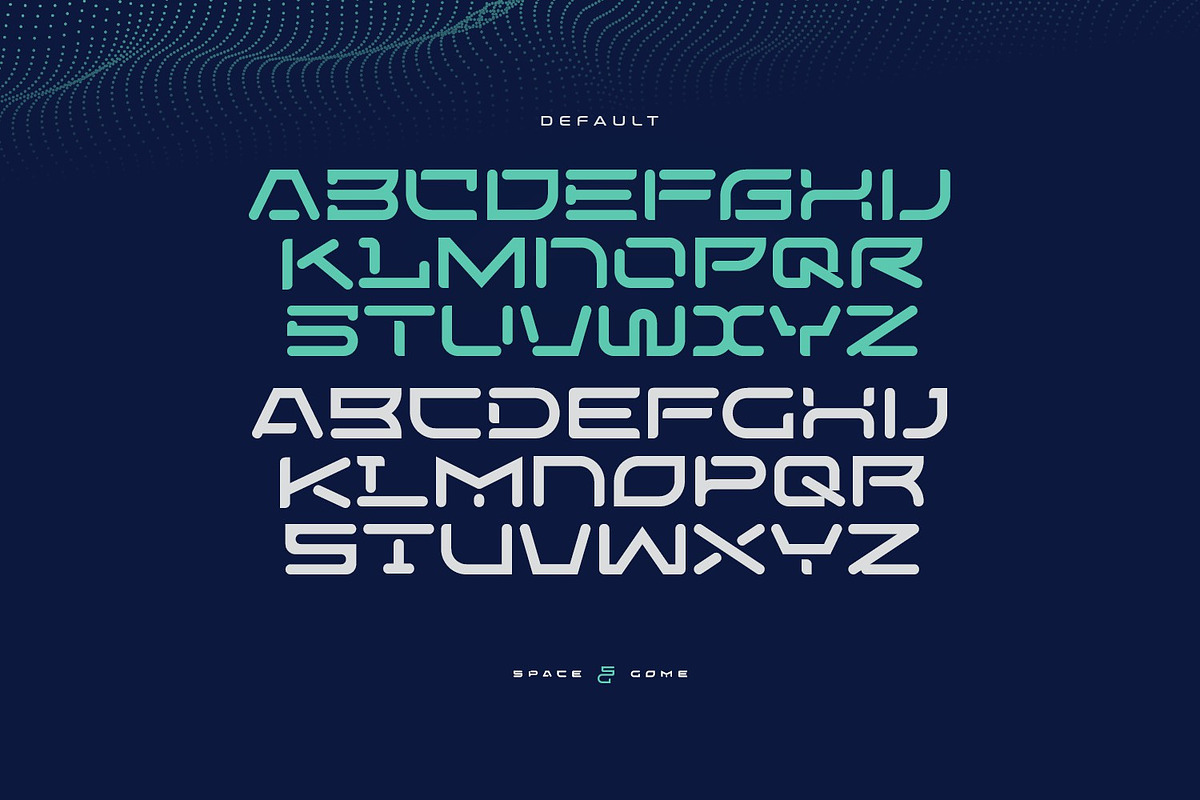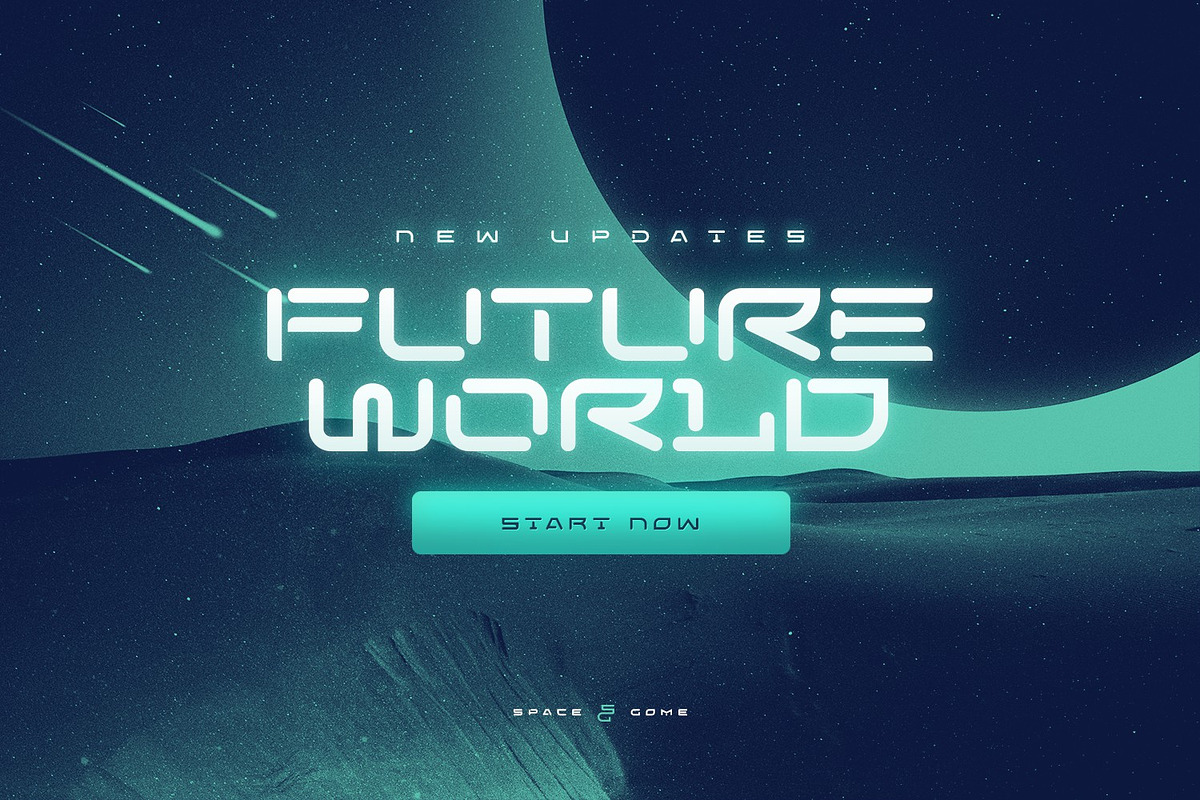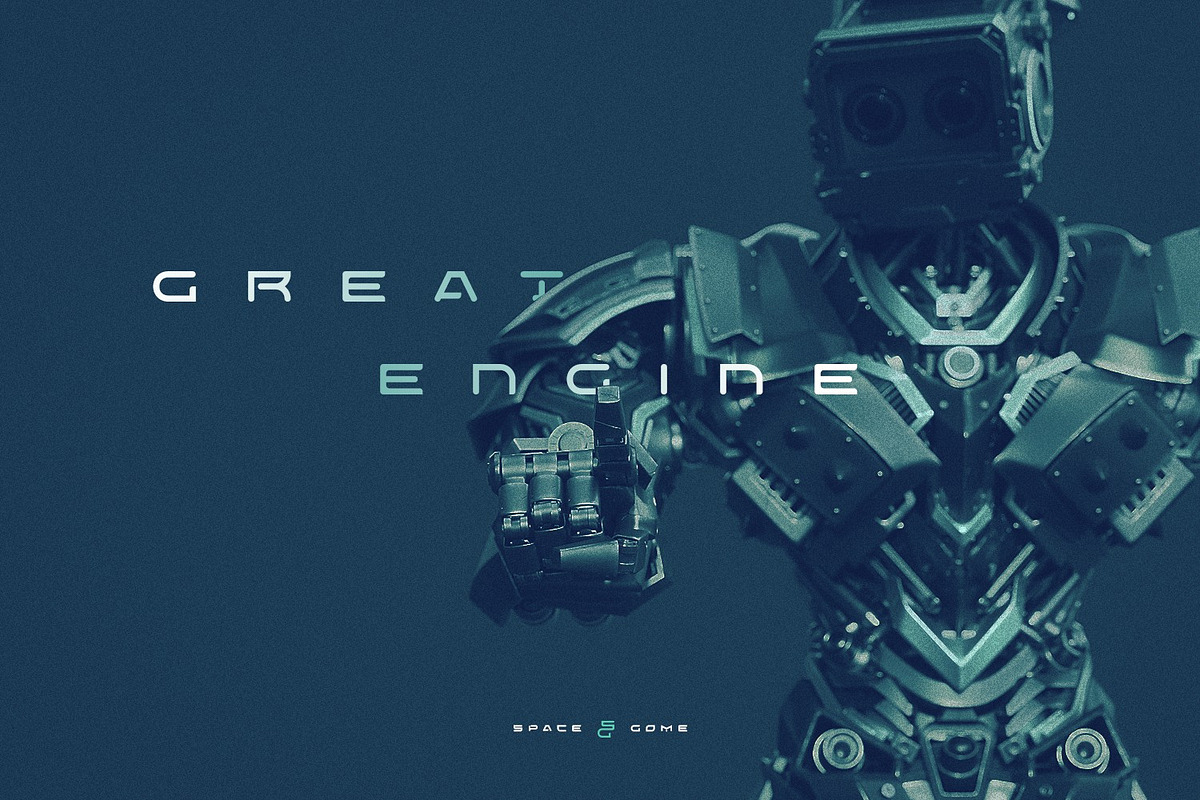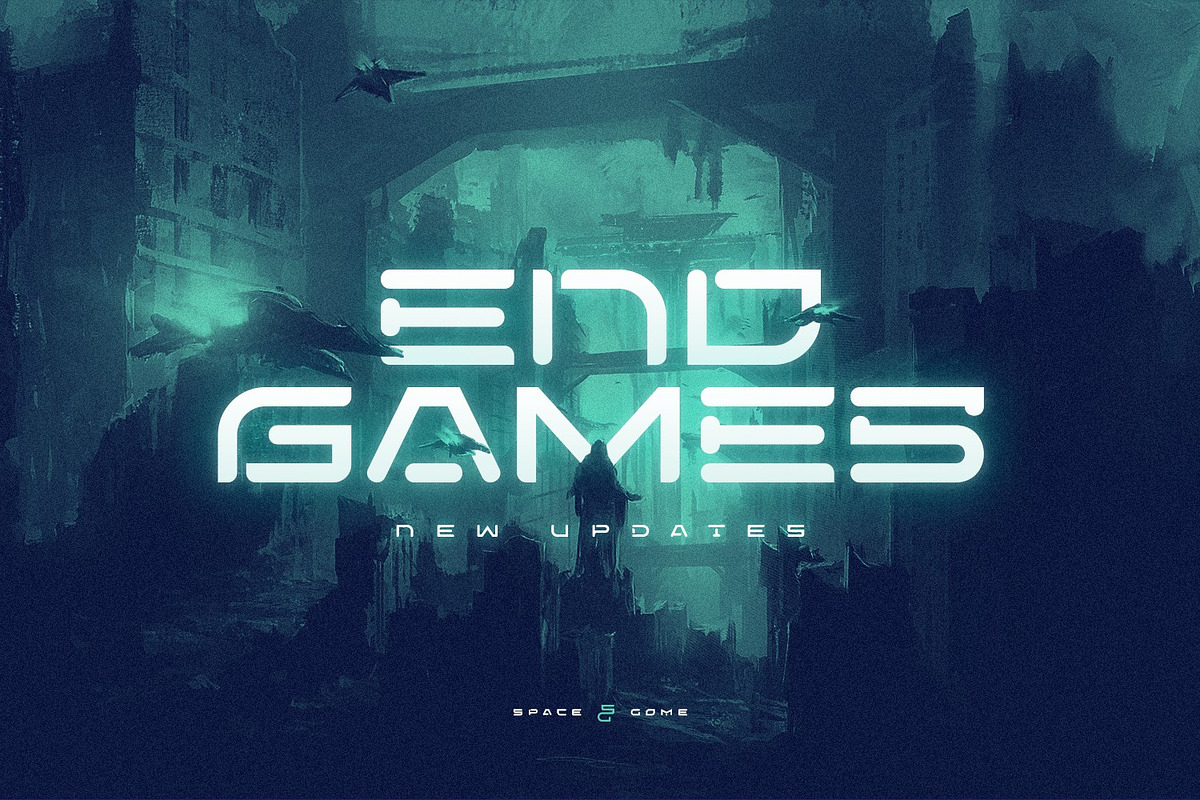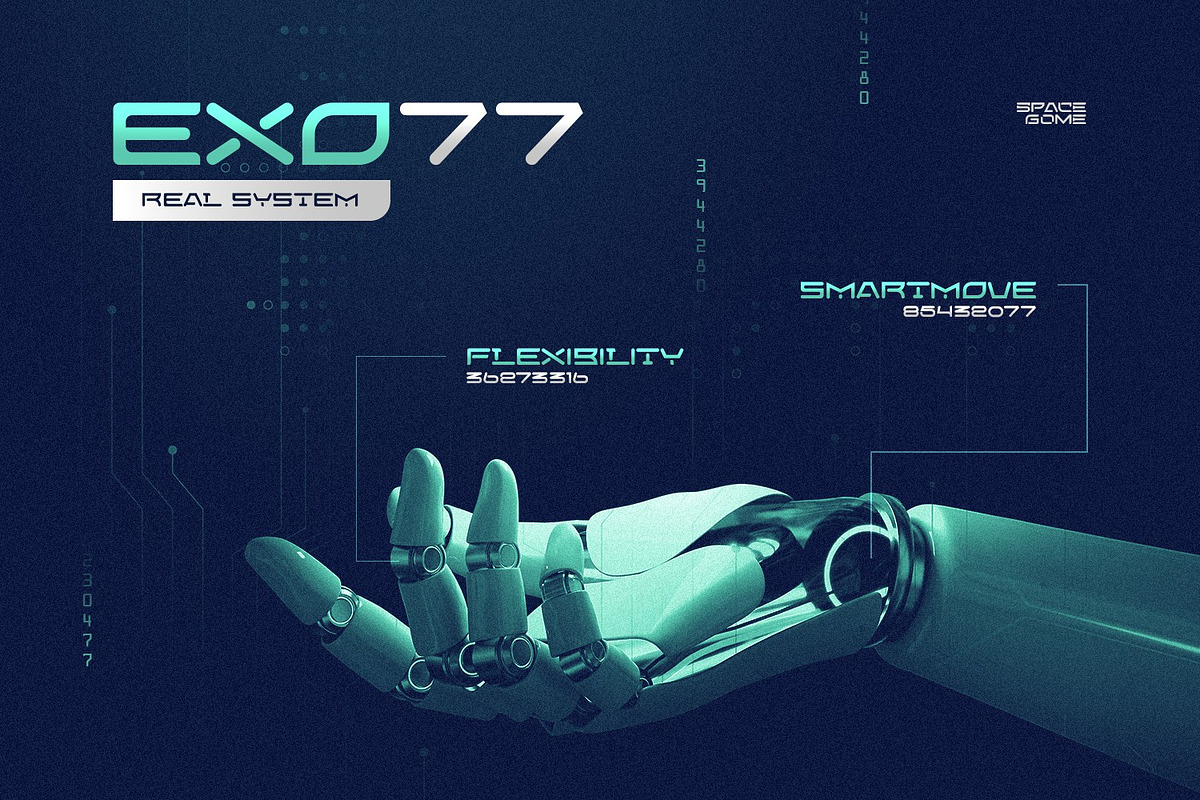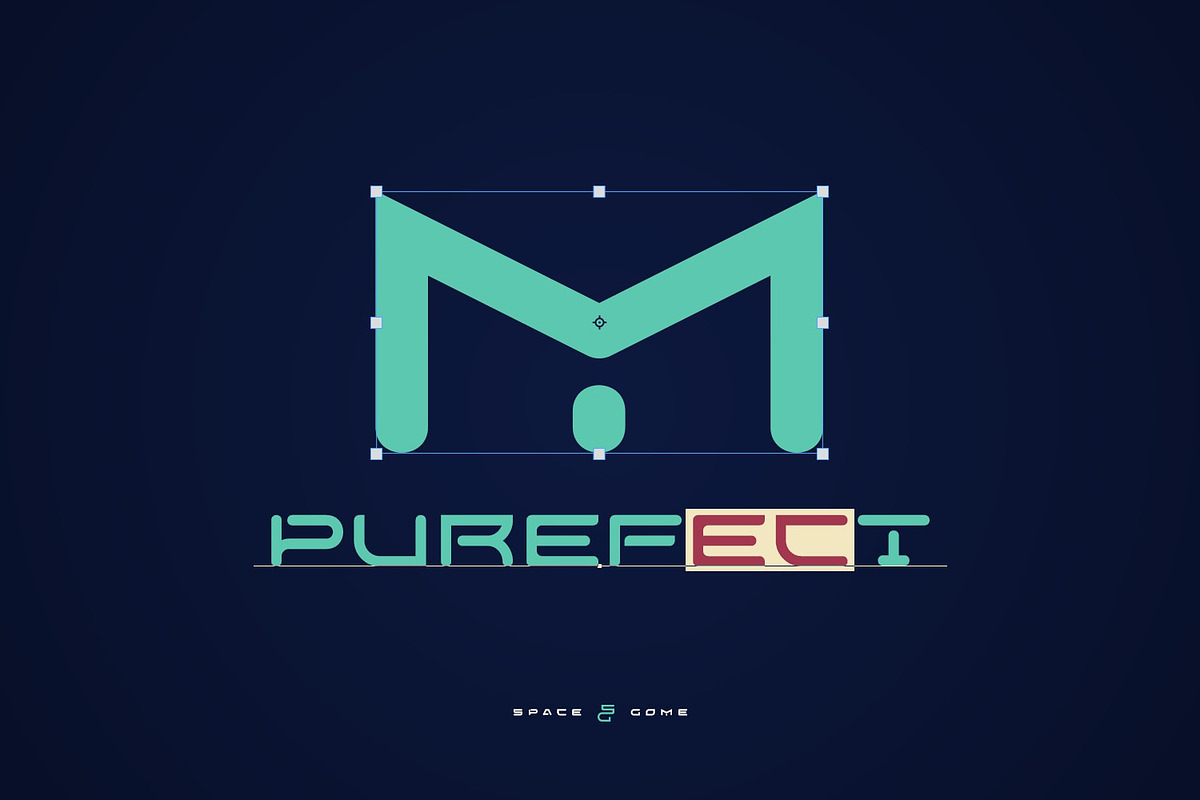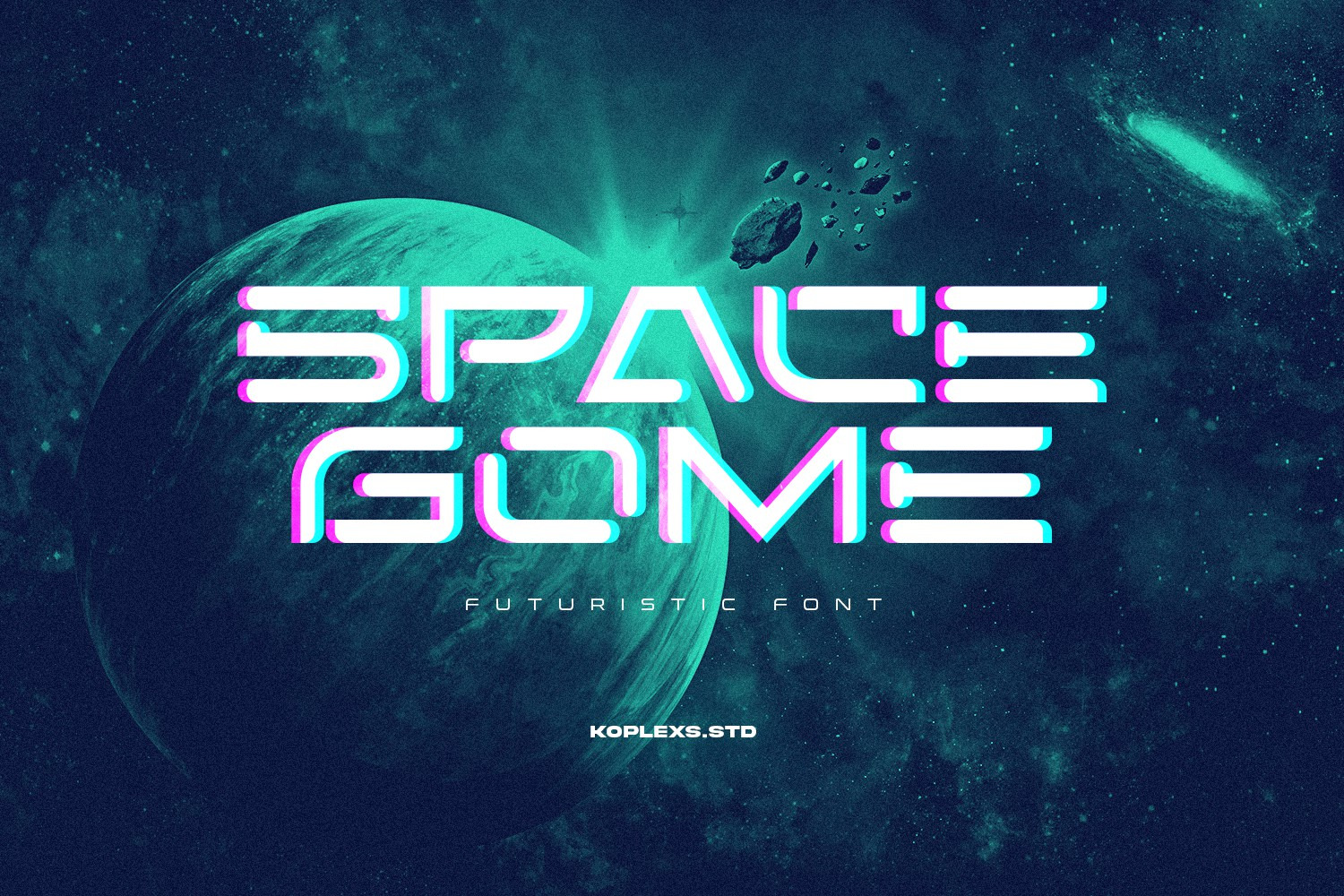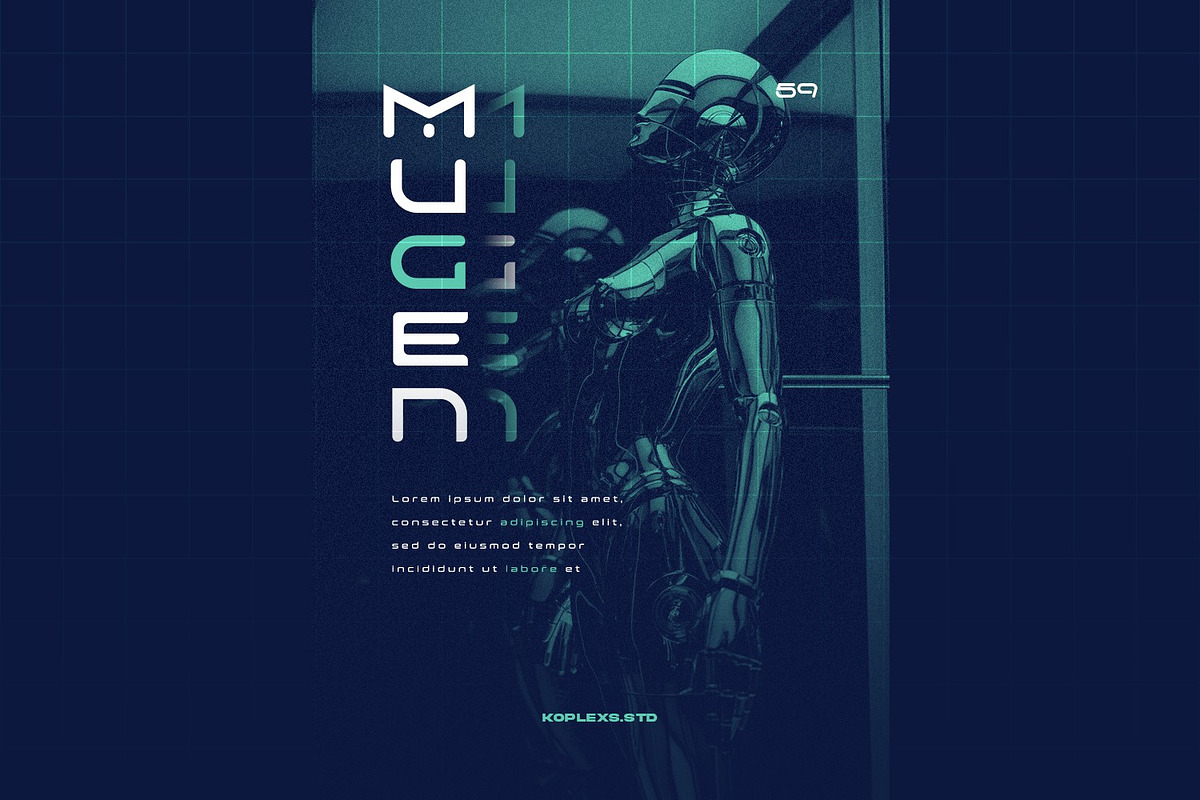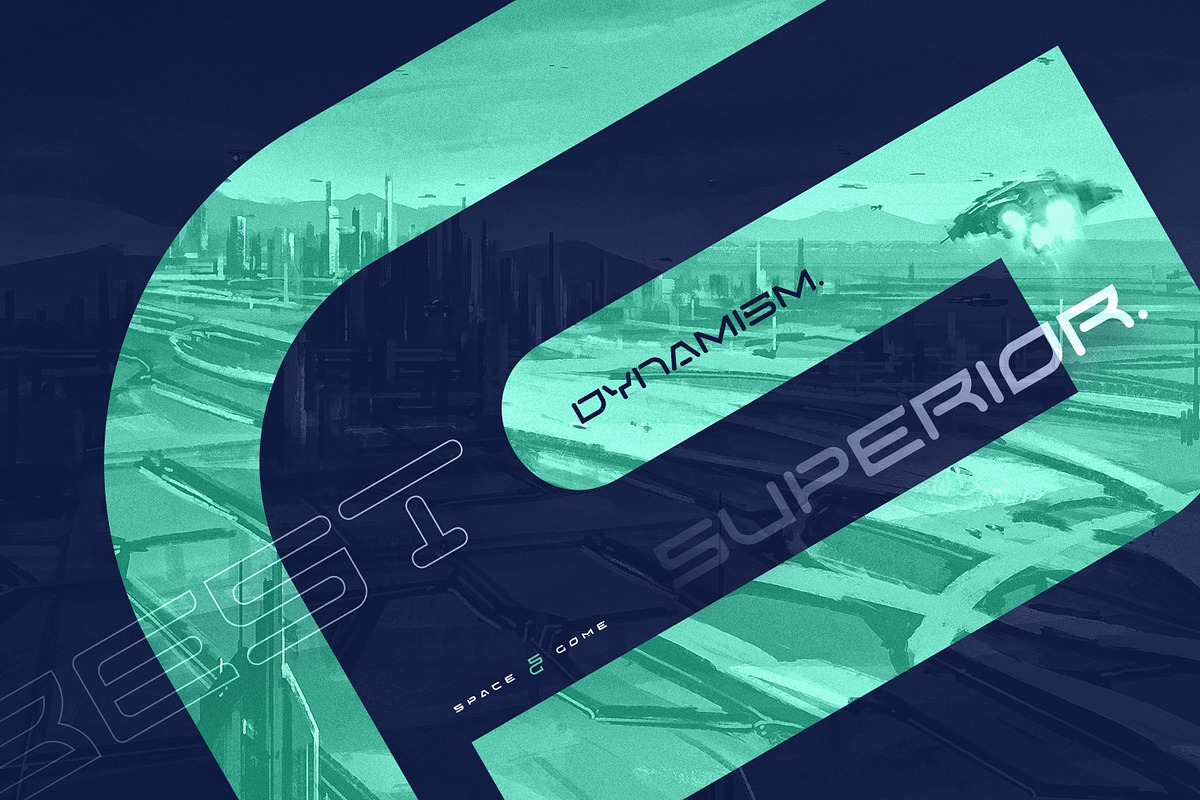
Space Gome - Futuristic Display Font
Space Gome is a futuristic font with rounded edges that will make your designs look more futuristic and elegant. Space Gome font is equipped with unique characters, this font will make your designs more stunning. You can use this font for any purpose, especially to create e-sport logos, NFT projects, Cover Movies etc. You can collaborate from existing letters as well as alternatives to make your designs fantastic. This font is also equipped with numbers, symbols and alternatives and ligatures.
- Ligatures Features.
- Alternates Features.